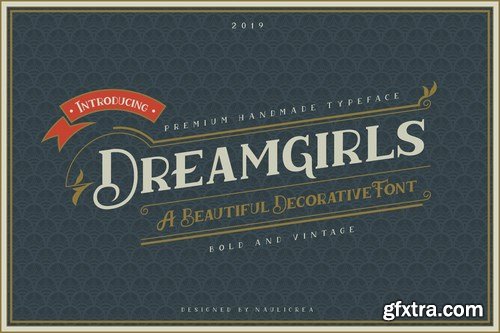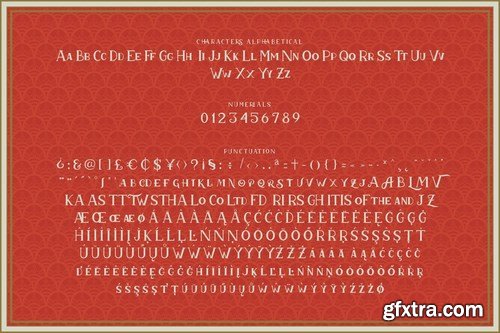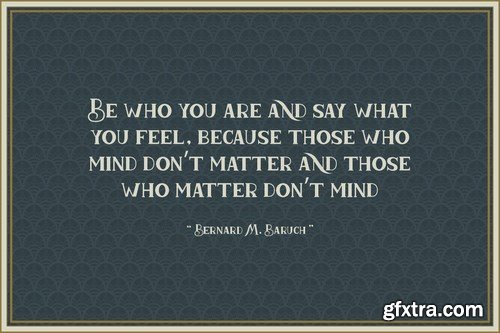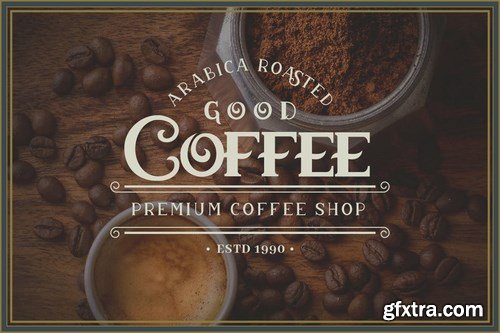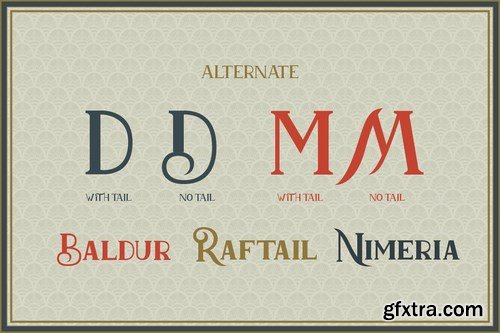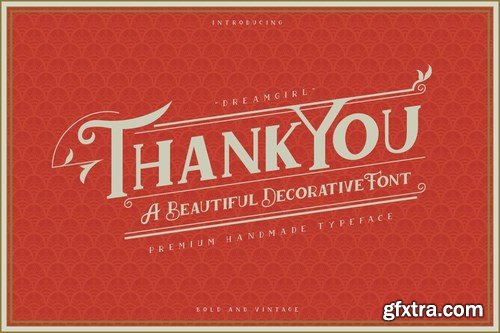
Introducing Dreamgirls Vintage Decorative Serif font. Are you looking for a bold decorative serif font that has a vintage feeling? We can help! Try to download our Dreamgirls font. The font is suitable to use for many vintage related occasion such as product, branding, invitation, banner, movie title, brand, event, and many more.